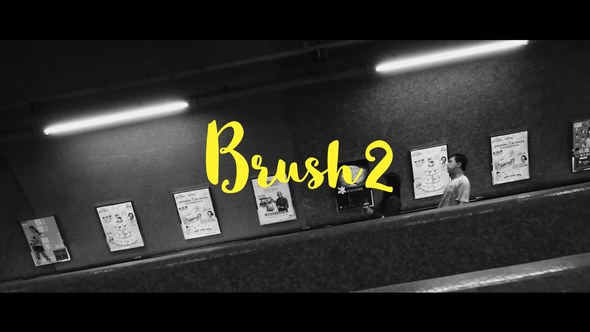
Brush-Animated Handwritten Typefaces
Brush Animated Handwritten Typefaces After Effects Template Project. With one click the Typer script automatically animates the text into the timeline. No need to drag and drop individual letters or manually animate each of them. This template can be used for titles, lyrics, quotes, social media videos, Instagram stories, intros, openers, captions, or lower thirds.
• 4 different fonts included.
• Very Easy&Fast customization.
• Control panel to easily adjust colors, tracking and font size
• Control the speed of the animation